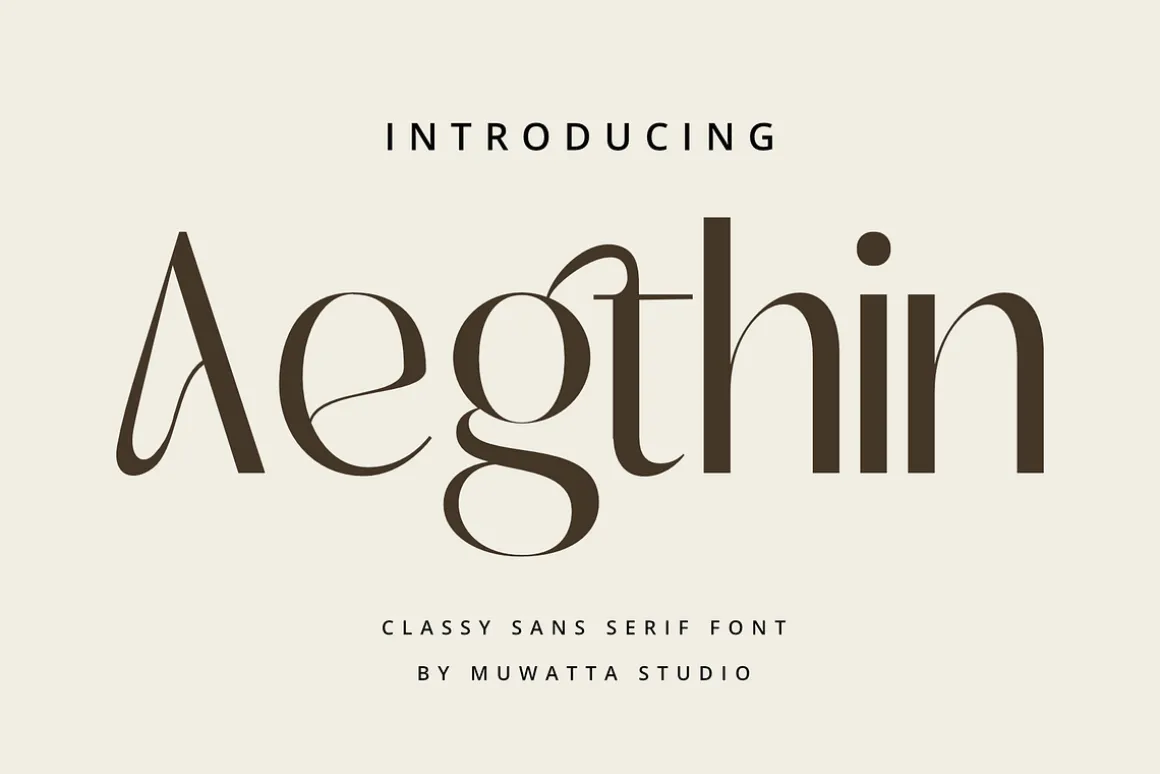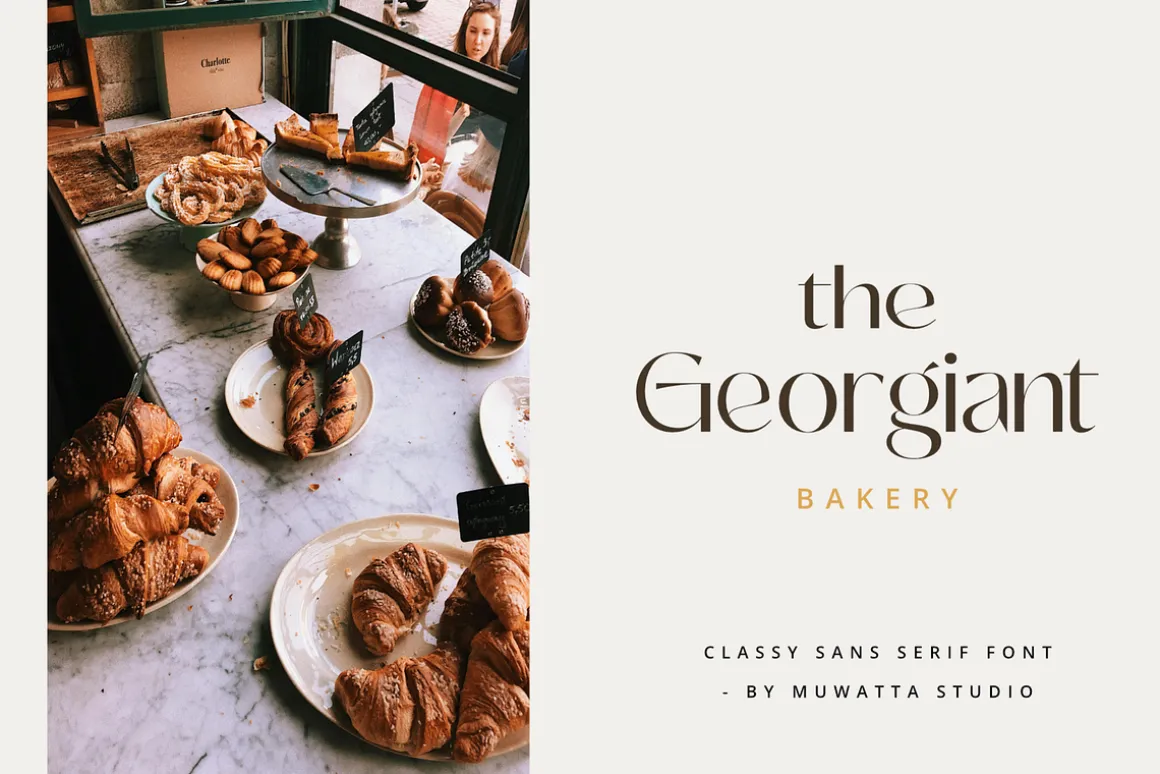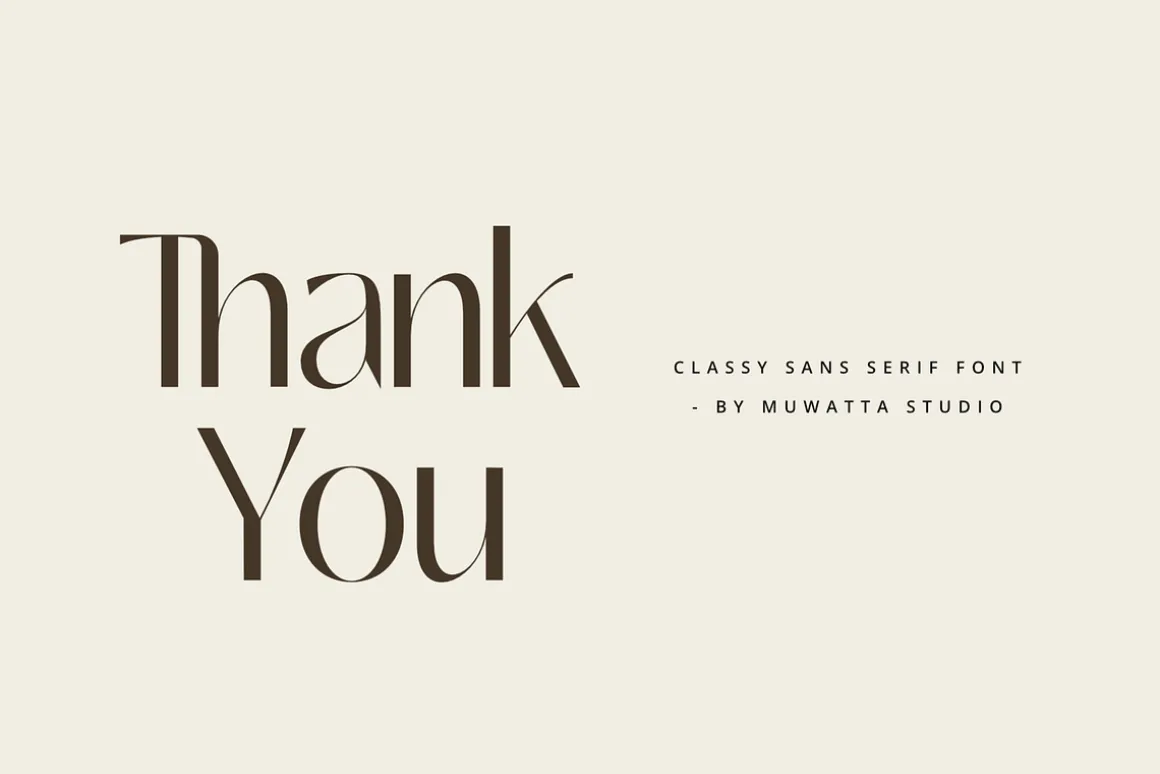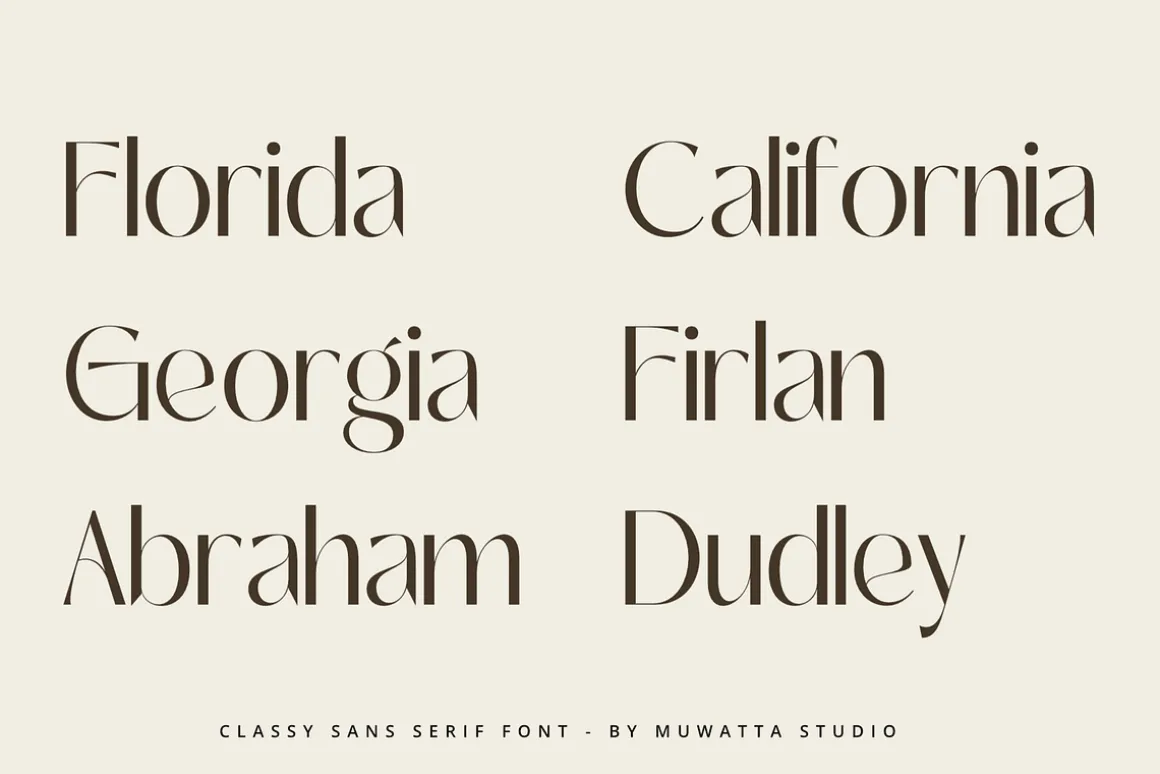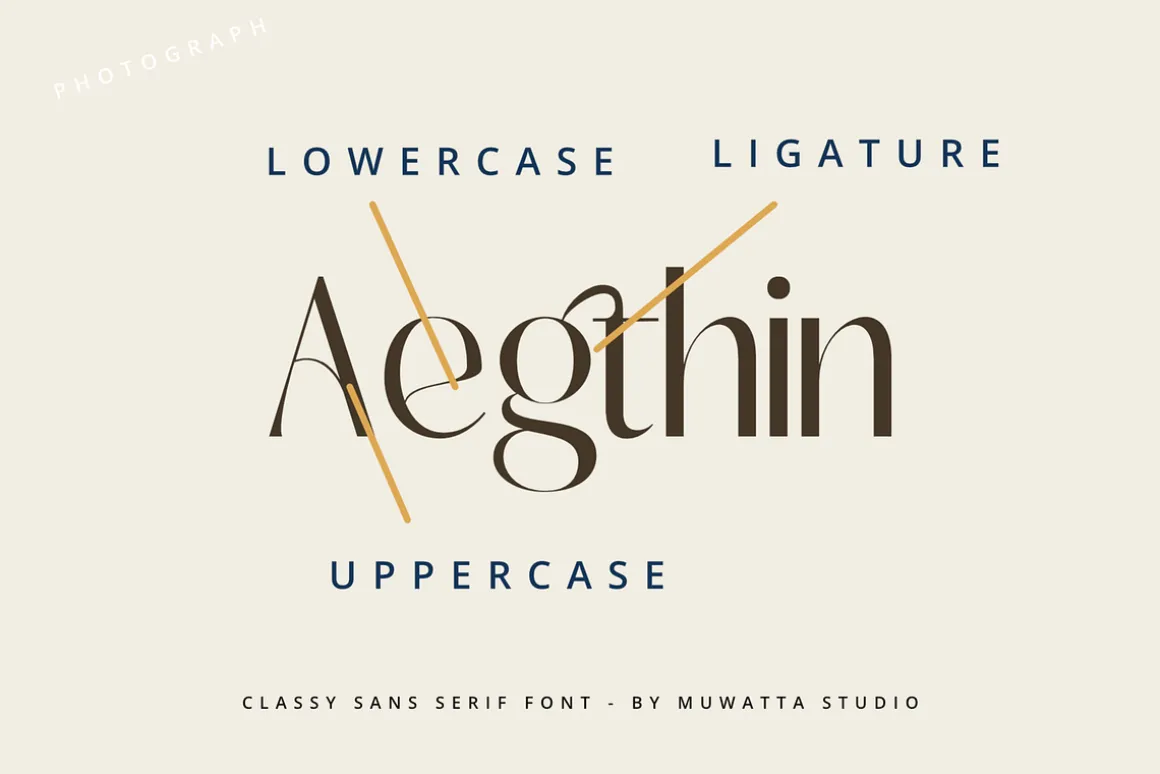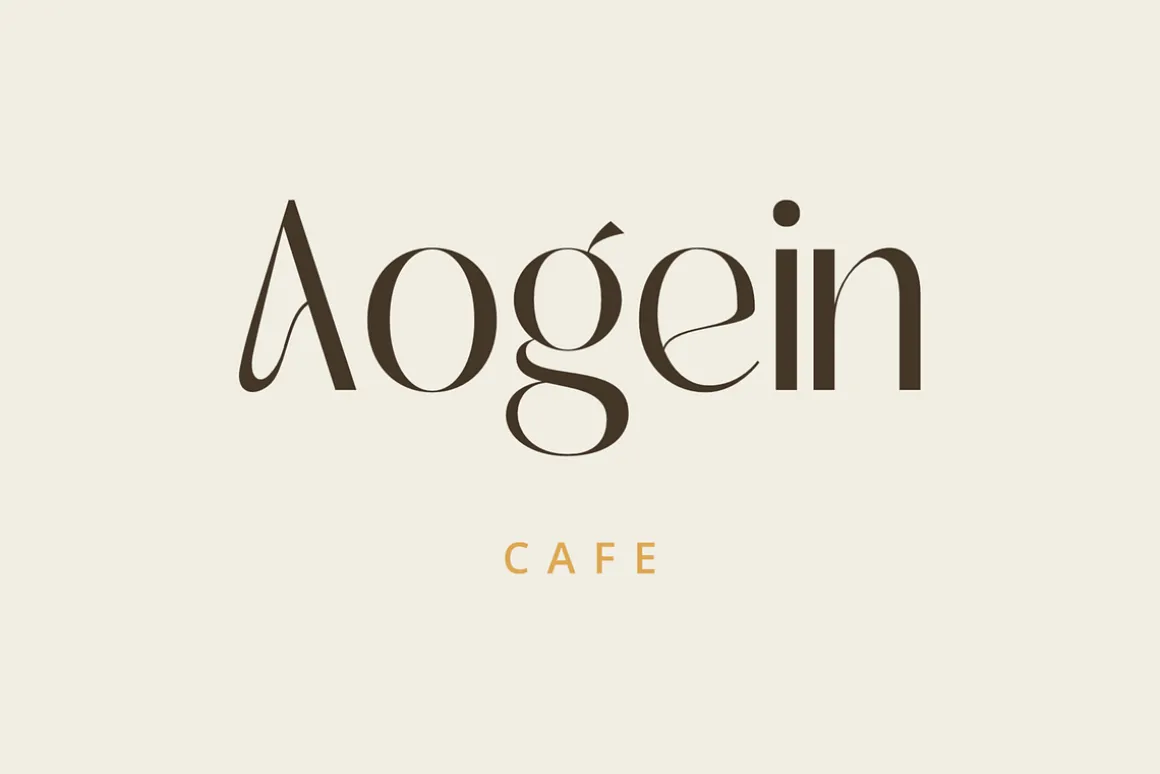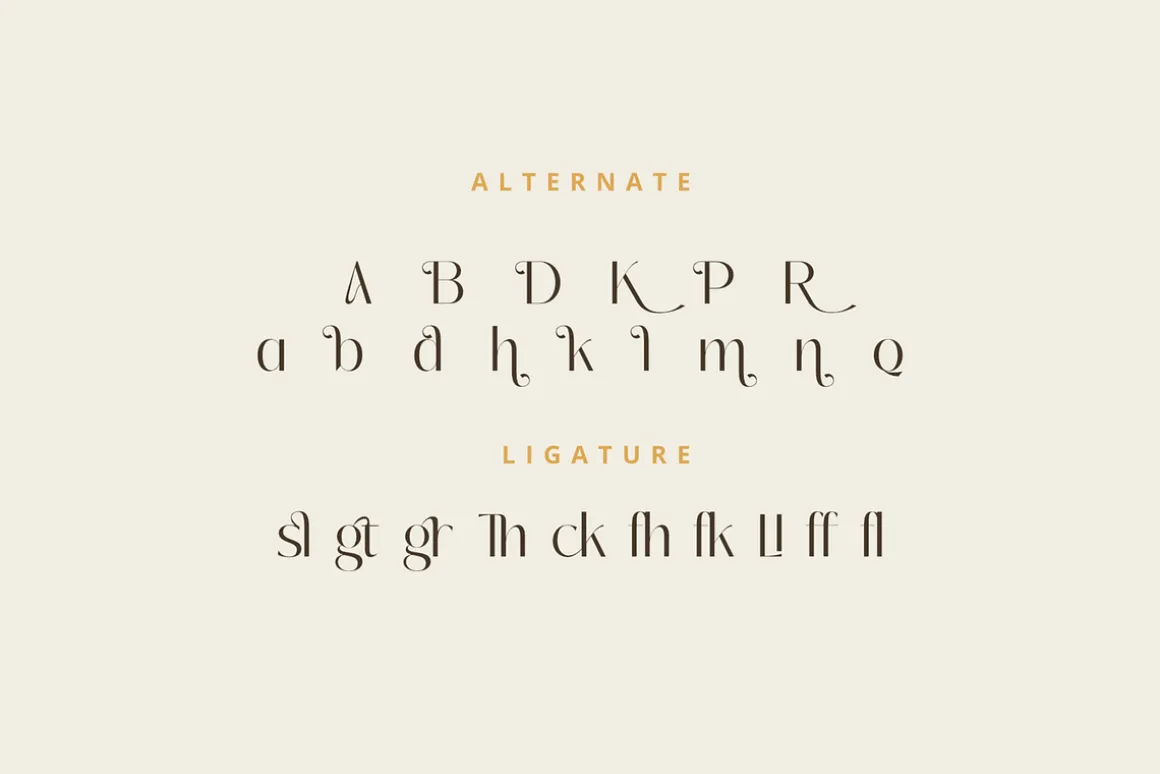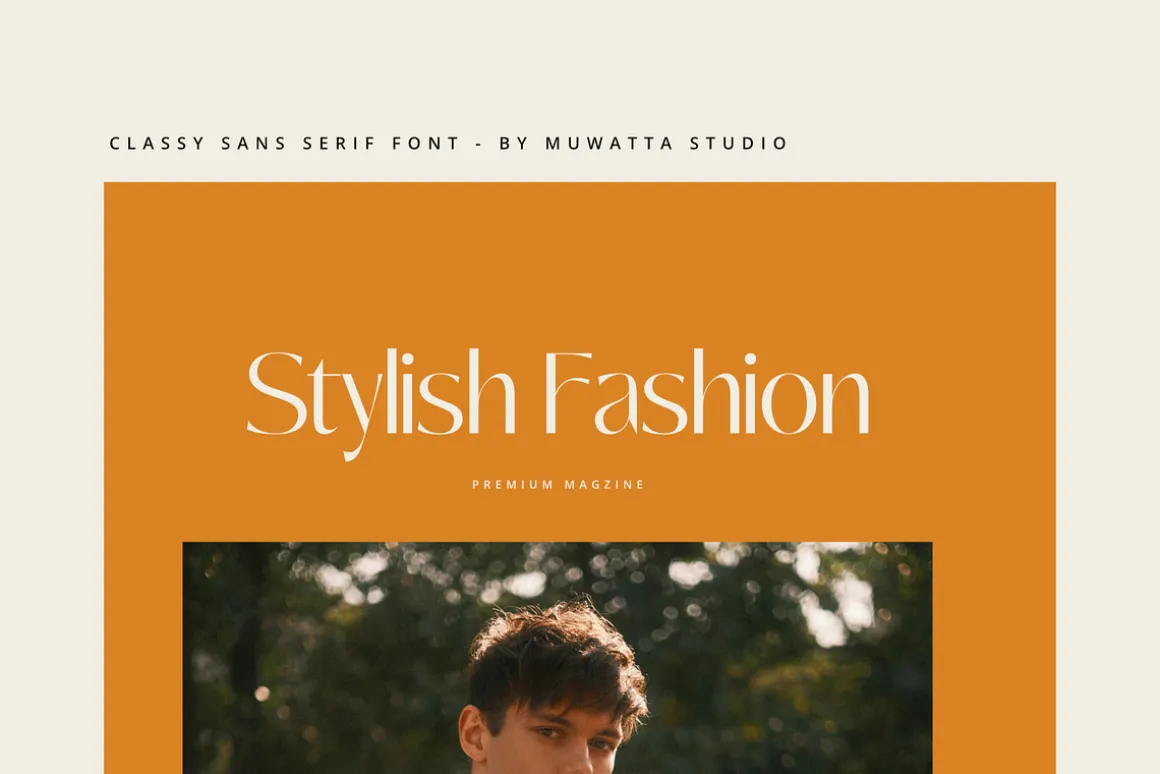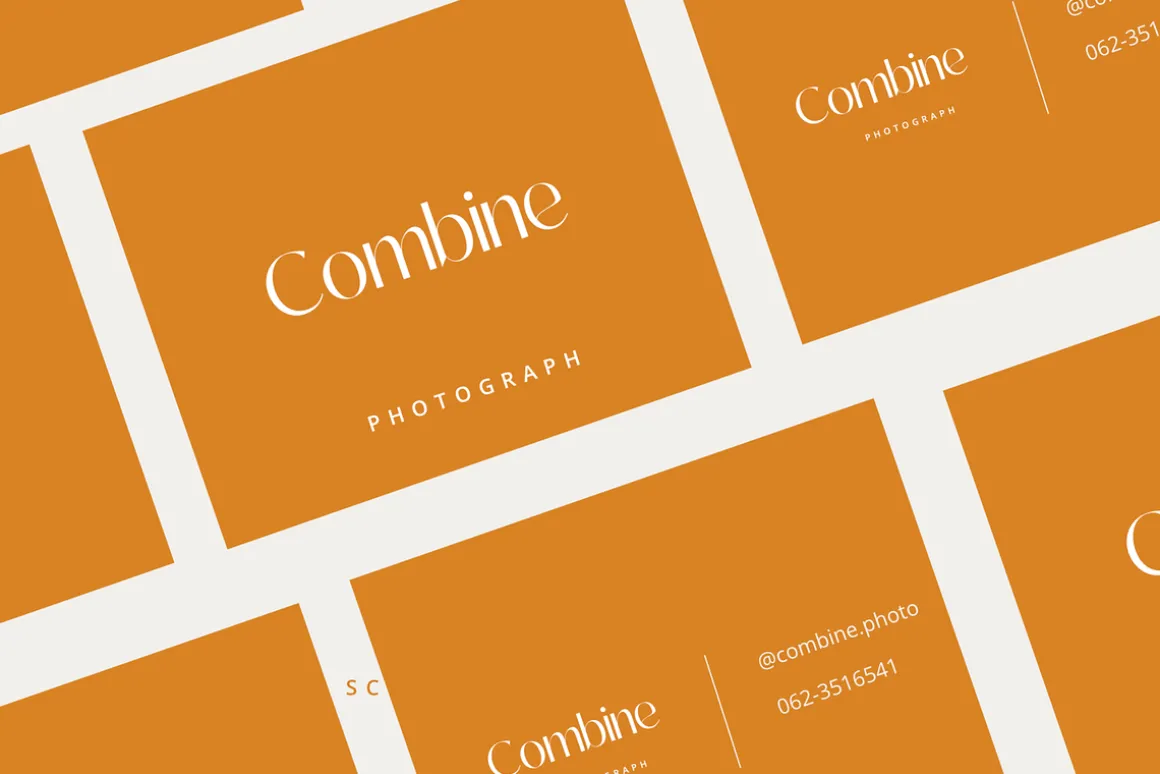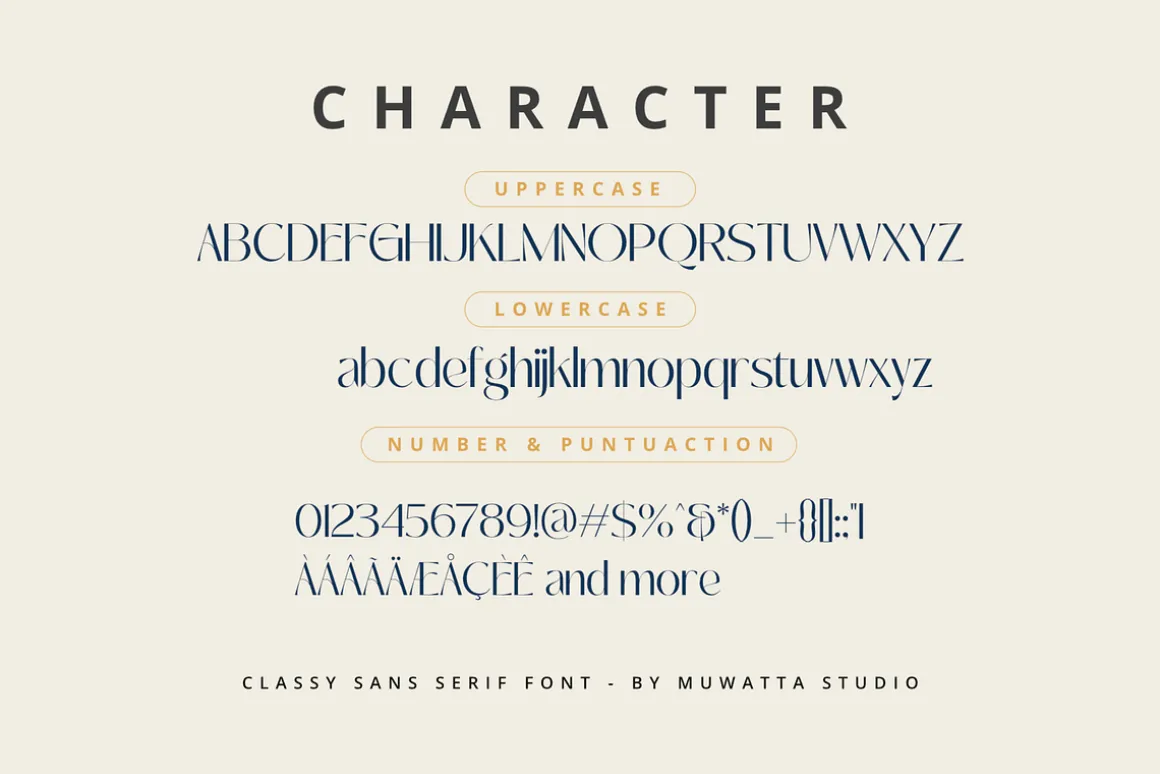
Aegthin – Where Timeless Elegance Meets Modern Clarity
Aegthin is a sans serif font that combines classic elegance with modern simplicity. Designed with clean lines, well-proportioned letterforms, and subtle details that evoke a luxurious feel without being over the top, Aegthin is the perfect choice for brands that want to appear elegant yet contemporary.